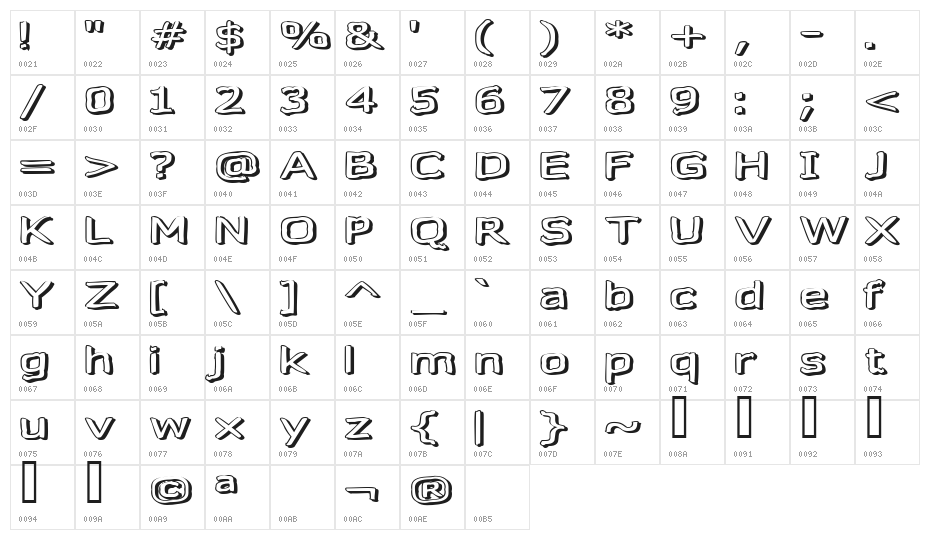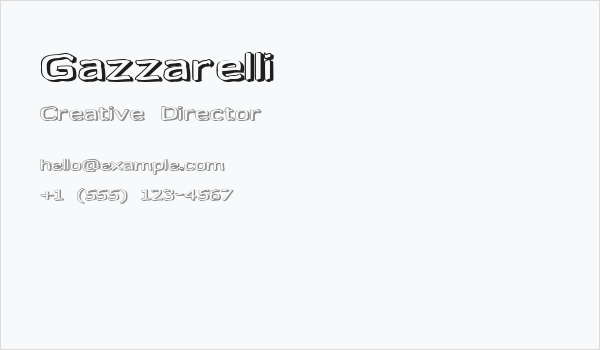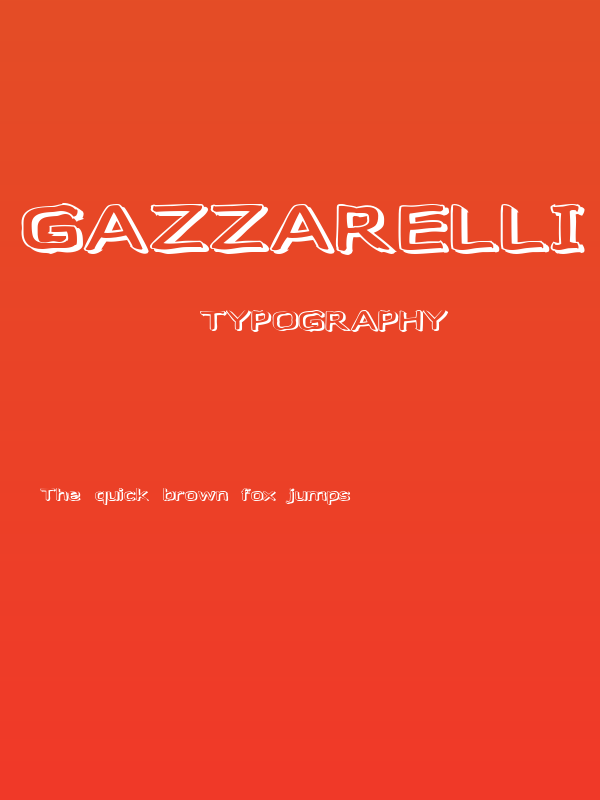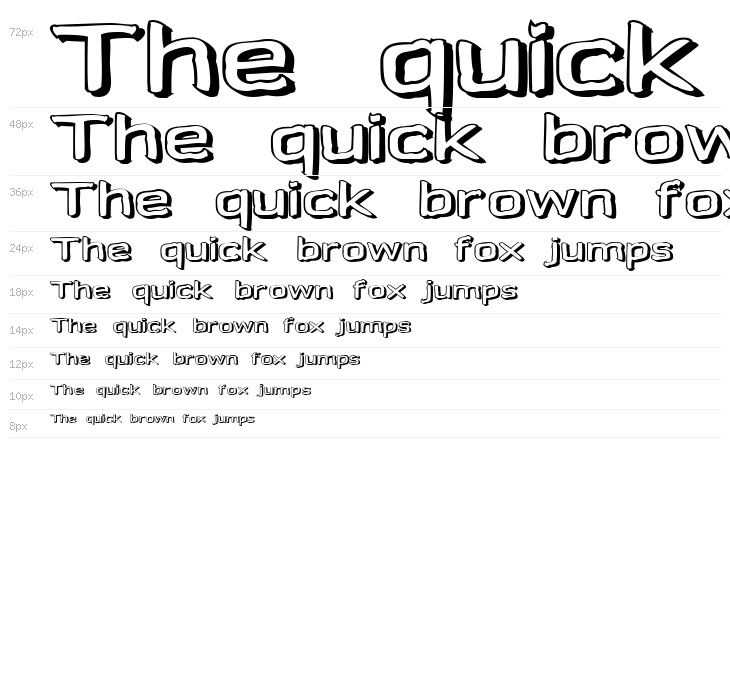
Gazzarelli Font
Gazzarelli Description
This font features a bold, playful style with a three-dimensional effect created by a shadow outline. The letters are uppercase and lowercase, with numerals and a variety of special characters. The design is characterized by its thick, rounded strokes and a shadow that gives it a sense of depth and movement. The font has a hand-drawn, cartoonish feel, making it suitable for projects that require a fun and energetic look. The characters are well-spaced, ensuring readability while maintaining a lively appearance.
| Overall Style | Playful, Cartoonish |
| Use Case | Headlines, Posters, Branding |
| Proposed Projects | Ideal for children's books, comic strips, playful branding, and event posters. |